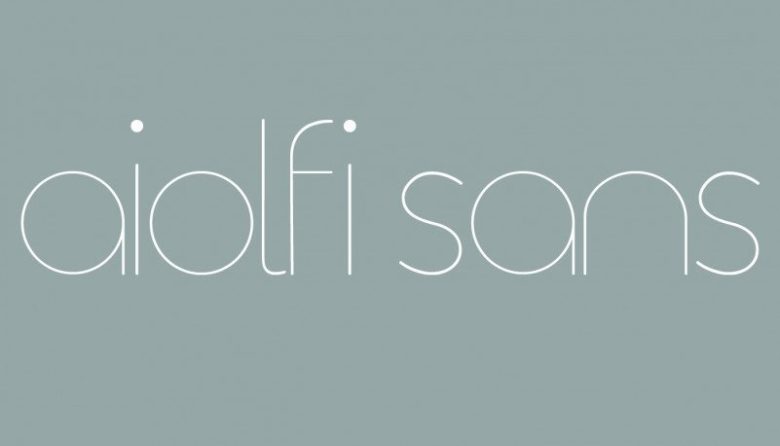
Aiolfi Font
Aiolfi is a sans serif display font created by Vitor Aiolfi with a rounded aesthetic. Perfect for gorgeous logos, titles, web layouts and branding. It looks gorgeous in all caps with a wide-set spacing if you want to try a classy look, or beautiful on its own in capital and lowercase letters for something completely timeless.